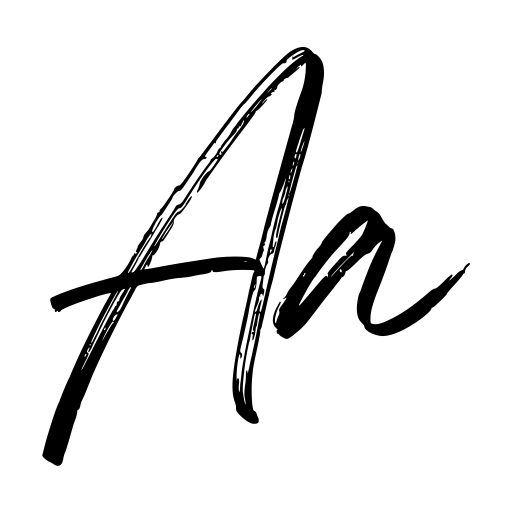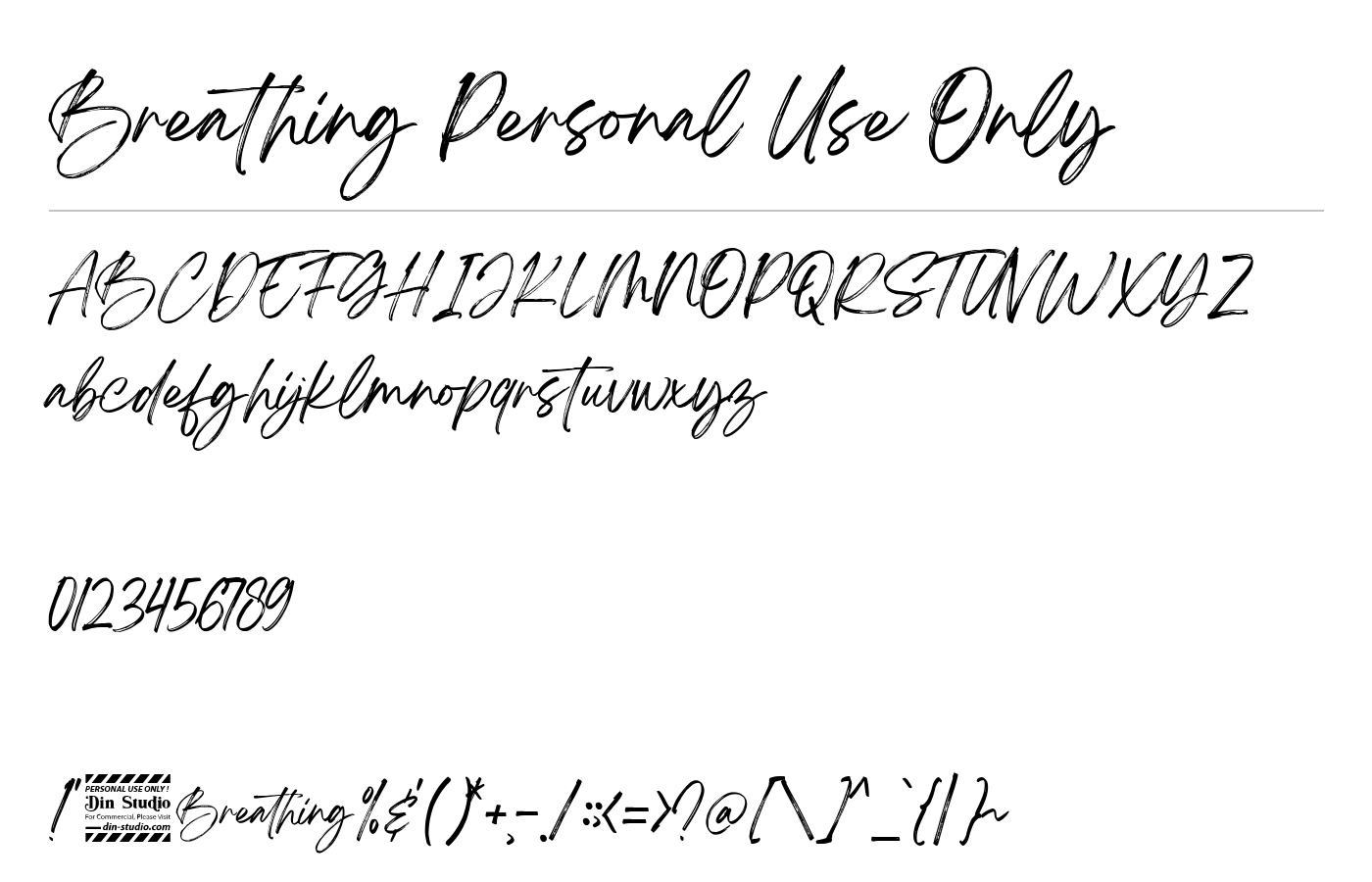
Breathing Personal Use Only is a lively and modern script font with a hand-drawn, brushstroke feel that adds a personal and artistic touch to any design. Its irregular, flowing letterforms and textured strokes create a casual yet expressive style, ideal for adding warmth and creativity to invitations, branding, and social media graphics. This font shines best in projects needing a distinctive, handcrafted look with an elegant yet approachable personality.
Breathing Personal Use Only Font
About Breathing Personal Use Only Font